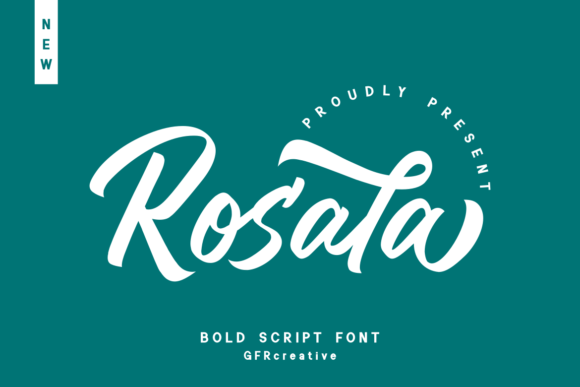
Immerse yourself in the world of elegant typography with Rosala Script, a handwriting font that captivates with its graceful strokes and enchanting style. This exquisite creation by GFRcreative is a symphony of beauty, inviting you to elevate your creative projects to new heights of sophistication.
Unleash your imagination and let Rosala's charm work its magic on your logos, branding, and photography. Whether you're designing wedding invitations, stationery, or creating captivating labels, Rosala effortlessly adds a touch of elegance and personality to every endeavor.
With Rosala, the possibilities are endless. Its meticulously crafted characters dance across the page, creating a visual masterpiece that speaks volumes. Embrace the artistry of Rosala and let your designs bloom with creativity.
But Rosala is more than just a beautiful font; it's a gateway to a world of emotions, connecting you with your audience on a deeper level. Its graceful curves and delicate swashes evoke feelings of joy, love, and nostalgia, leaving an indelible mark on their hearts.
Elevate your designs to new heights of elegance with Rosala Script. Let its enchanting style captivate your audience and create a lasting impression that resonates with their souls. Experience the transformative power of Rosala and unlock the true potential of your creative vision.